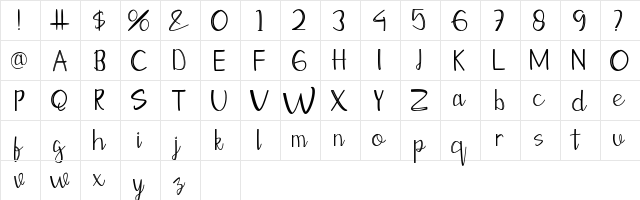
Moontea Script Family Regular
Design Context for Moontea Script Family Typeface
Moontea Script Family flows with the natural rhythm of handwritten lettering, making it ideal for designs that call for warmth and personal expression.
Font Pairing: Combine Moontea Script Family with a simple geometric sans for maximum contrast — the tension between flowing curves and clean structure is a classic typographic pairing.
Pro Tip: Pair Moontea Script Family with a clean sans-serif for supporting text. The contrast between fluid script and geometric structure creates an elegant typographic hierarchy.